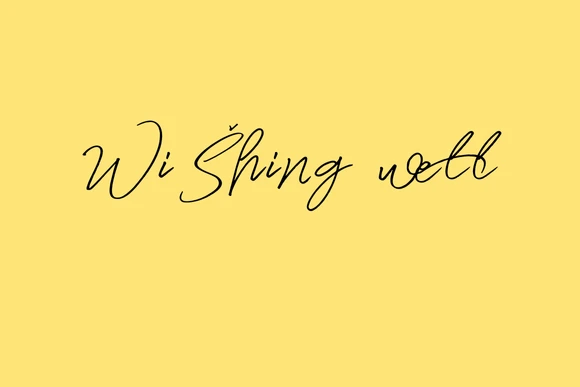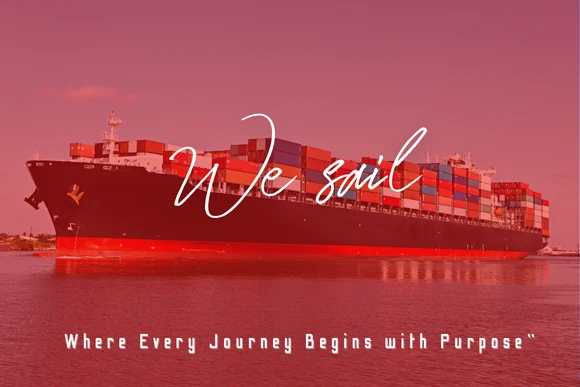
Bring a sense of freedom and adventure to your projects with We Sail Font ā a nautical-inspired handwritten script that captures the spirit of sailing, travel and discovery. This elegant yet relaxed typeface blends flowing strokes with handcrafted charm, making it ideal for brands, designers and creators who want to evoke movement, water and open horizons.
Use We Sail Font for cruise line brochures, yacht club branding, coastal cafƩ menus, beach-themed packaging, travel blogs, wedding invitations, motivational quotes, social media posts and any design that needs a maritime or adventurous touch. Its carefully crafted letterforms ensure legibility while adding a stylish, windswept look to your text.
Key Features:
Nautical-themed handwritten script
Uppercase & lowercase letters
Numbers, punctuation & symbols included
Alternates & ligatures for a more natural handwritten feel
Smooth curves for easy readability
Ideal For:
Travel and adventure brands, cruise companies, yacht clubs, beach resorts, coastal restaurants, event invitations, social media graphics, apparel design, packaging, logos and blog headers.